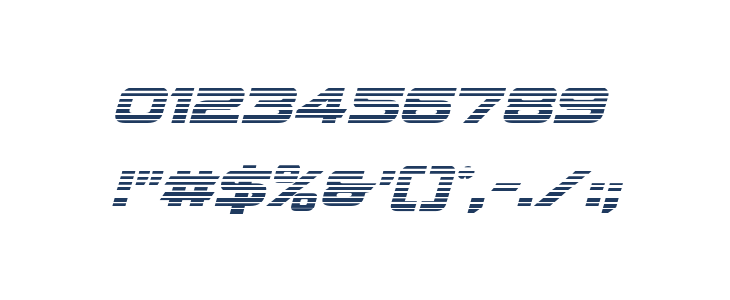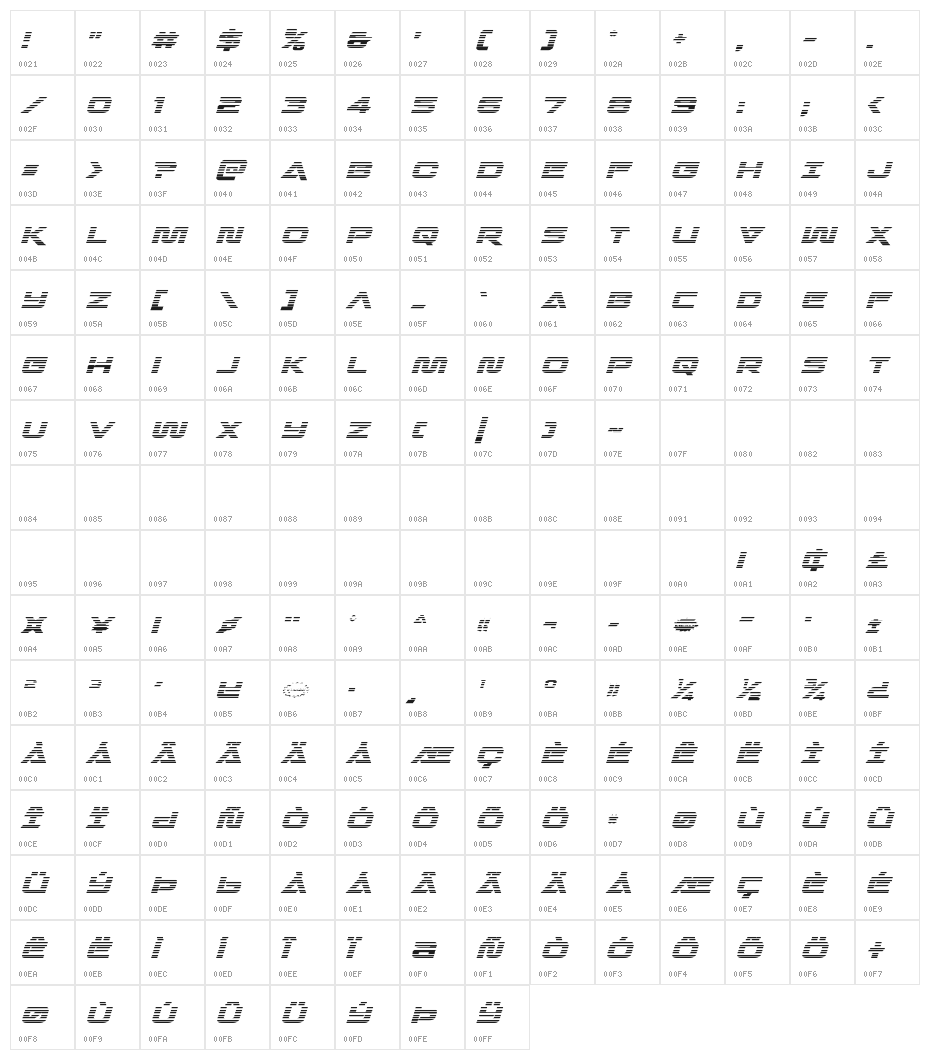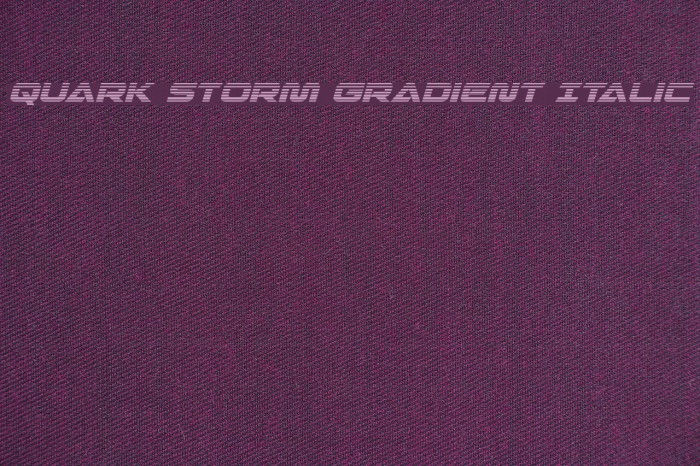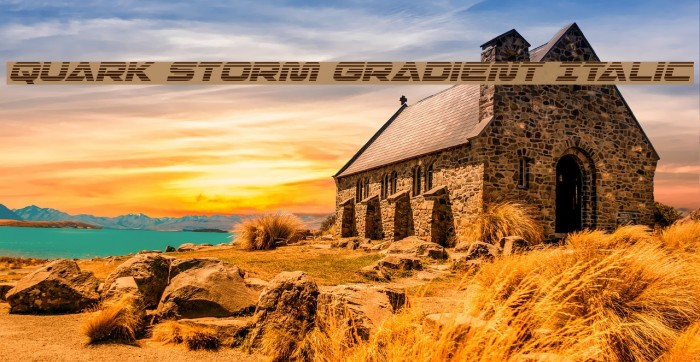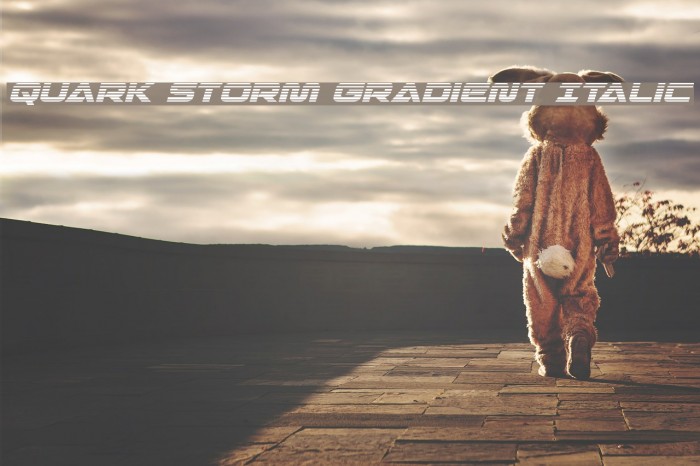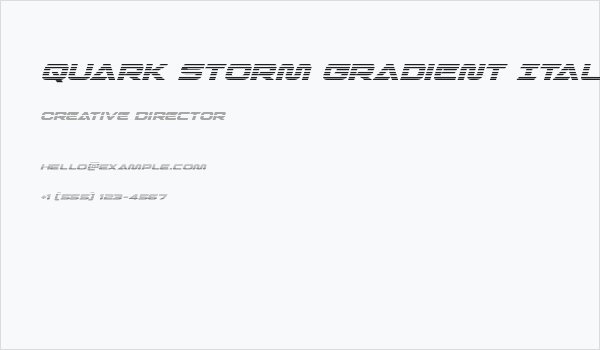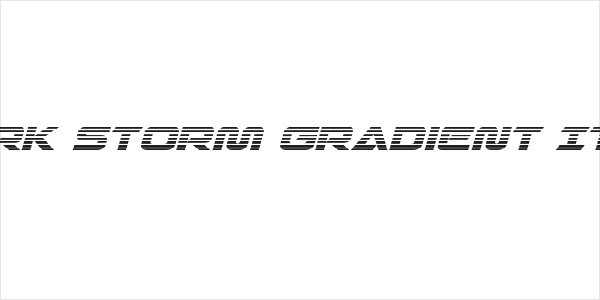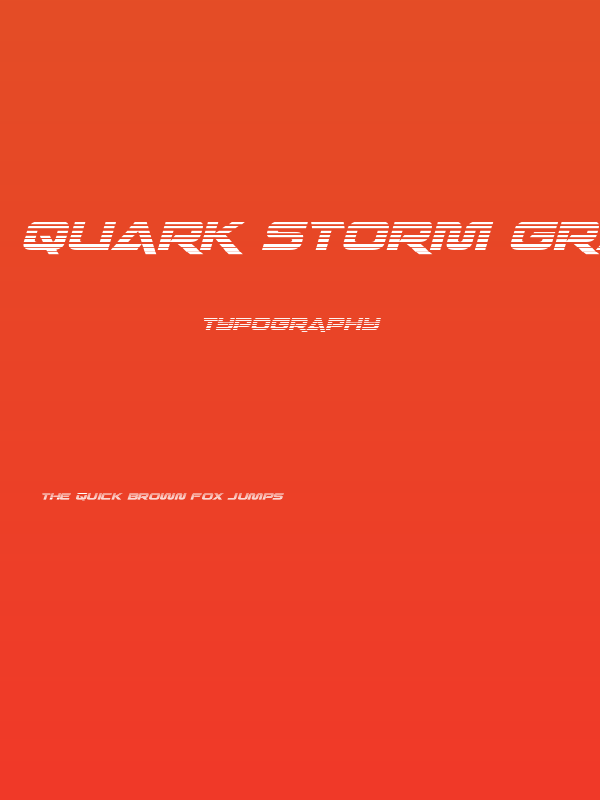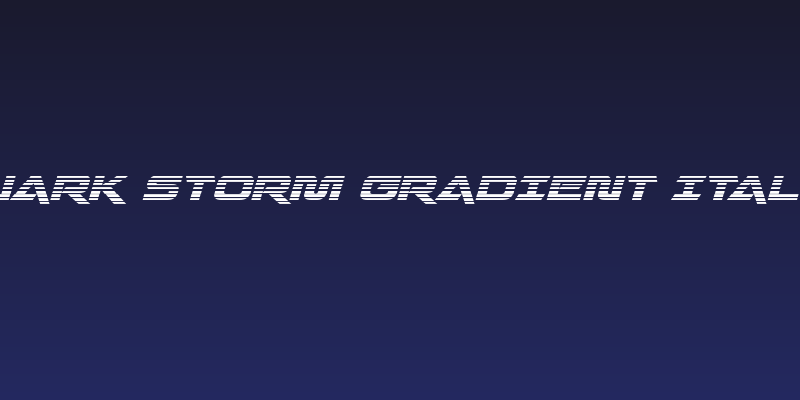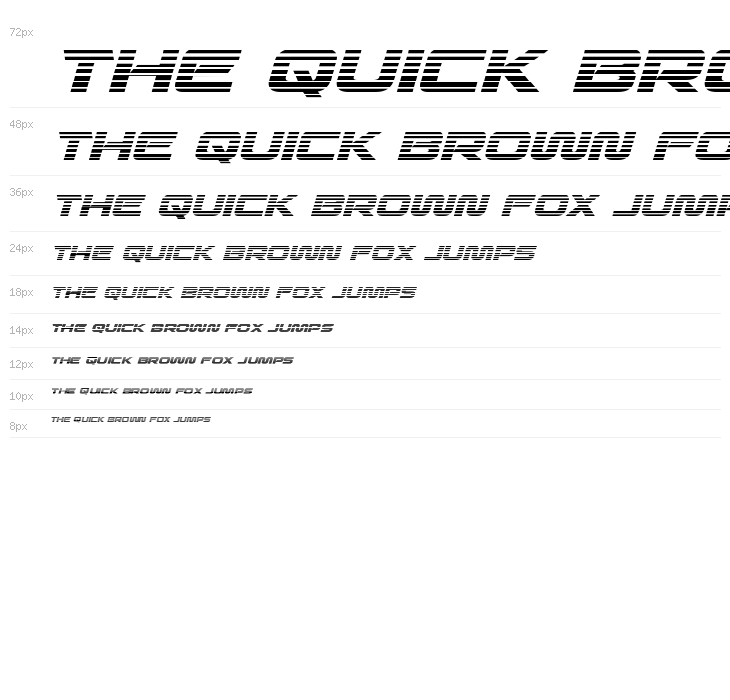
Quark Storm Gradient Italic Font
Quark Storm Gradient Italic Description
This font features a dynamic and futuristic design with a distinct italic slant. Each character is composed of horizontal lines that create a gradient effect, giving the font a sense of movement and energy. The uppercase and lowercase letters maintain a consistent style, with sharp angles and a sleek appearance. The numbers and special characters are designed to match the overall aesthetic, ensuring a cohesive look across all elements. This font is ideal for projects that require a modern and edgy feel, such as technology branding, sports team logos, or sci-fi themed designs.
| Use Case | Logos, Headlines |
| Proposed Projects | Ideal for technology branding, sports logos, and sci-fi themed designs. |